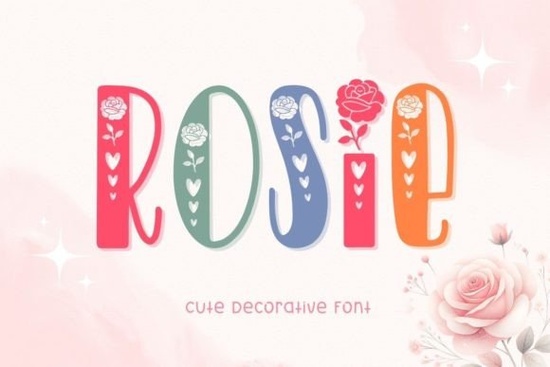
If you're looking for a playful, hand-lettered font with a touch of seasonal charm, Rosie Font might be just what your next creative project needs. Designed with sweet Valentine’s Day silhouettes woven into its letterforms, Rosie blends decorative flair with everyday usability making it ideal for everything from greeting cards to social media graphics and printable merchandise.
Unlike overly ornate display fonts that are hard to read at small sizes, Rosie maintains legibility while still feeling personal and whimsical. Its quirky style comes through in subtle heart-shaped terminals, looping connections, and soft curves that mimic natural handwriting. This balance is especially helpful if you’re designing products for customers who want something festive but not overwhelming.
What kinds of projects work best with Rosie Font?
Rosie shines in designs where warmth and personality matter more than strict formality. Think of it as the typographic equivalent of a handwritten note tucked into a gift bag it adds a human touch. Here are some real-world uses that fit perfectly:
- Valentine’s Day cards and invitations – Pair Rosie with simple layouts and soft pastels for an authentic handmade feel.
- Print-on-demand items like mugs, T-shirts, and tote bags – The font’s friendly vibe resonates well with casual, gift-oriented products.
- Social media posts for small businesses promoting seasonal offers or heartfelt messages.
- Digital stationery, including planner stickers, journal headers, or printable quote art.
- Banners and signage for in-store promotions around February or any time you want to convey affection or kindness.
Because Rosie includes contextual alternates and ligatures (depending on your software), you can achieve varied, organic-looking text even when repeating words a big plus for crafters who want their designs to feel less “digital” and more handcrafted.
How does Rosie compare to other decorative fonts?
Decorative fonts often lean heavily into theme like holiday-specific motifs or exaggerated scripts but Rosie strikes a middle ground. It’s themed enough to stand out during Valentine’s season, yet versatile enough to use year-round for any message that calls for tenderness or cheer.
For example, if you’ve used something like the Fox Patriotic font for Fourth of July designs, you’ll appreciate how Rosie fills a similar niche but for romantic or sweet occasions. Both fonts prioritize mood and visual storytelling over strict neutrality, which is exactly what many small creators need when building branded, emotionally resonant content.
Is Rosie Font easy to use for beginners?
One practical tip: avoid using Rosie for long paragraphs or body text. Its decorative nature means it’s best reserved for headlines, short phrases, names, or accent words. For longer copy, pair it with a clean sans-serif like Montserrat or Lato to maintain readability while keeping your design cohesive.
If you’d like to see how others have used it, Creative Fabrica’s marketplace includes real customer uploads everything from Etsy shop banners to printable wall art that demonstrate Rosie in action. Seeing it applied helps clarify its scale, spacing, and emotional tone before you commit.
Quick checklist before you buy
- Do you need a font for short, expressive text not body copy?
- Are you designing for Valentine’s Day, weddings, baby announcements, or “just because” gifts?
- Do you want a hand-drawn aesthetic without sacrificing too much legibility?
- Have you tested a mockup? Try typing your actual phrase in the online preview tool first.
If most of those boxes are checked, Rosie Font could be a low-risk, high-reward addition to your creative toolkit especially if you regularly design heartfelt, seasonal, or gift-focused content.